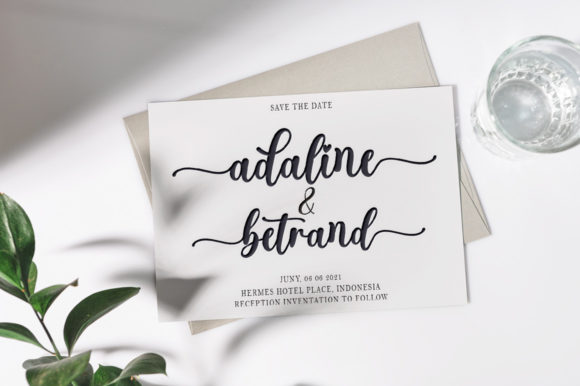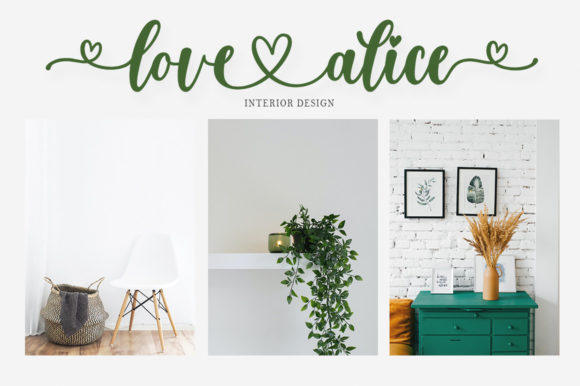
Willow Alice Font
db-ku.com - Script & Handwritten -- Willow Alice is a beautiful and refined script font. It has a classy, elegant and modern look that can be used for logos, branding, invitations, stationery, wedding designs, social media posts, and much more! This font is PUA encoded which means you can access all of the amazing glyphs and ligatures with ease!